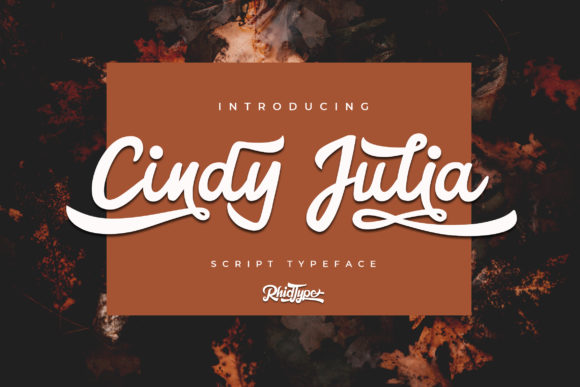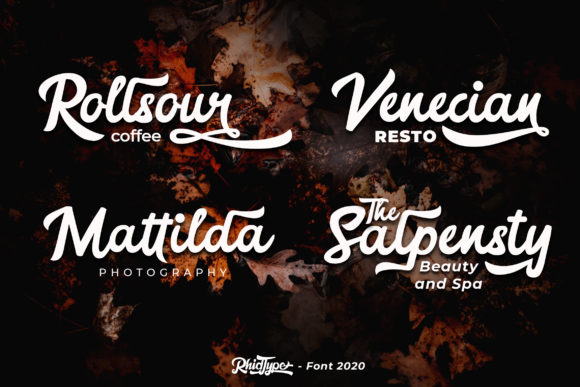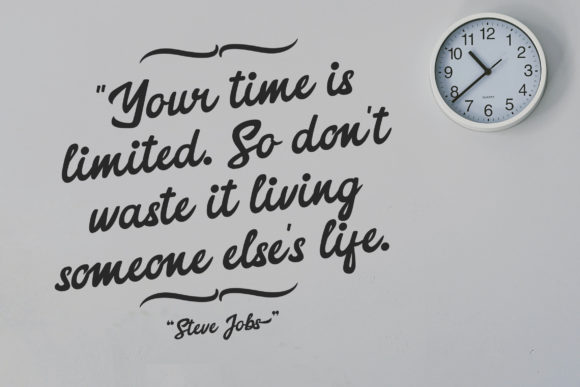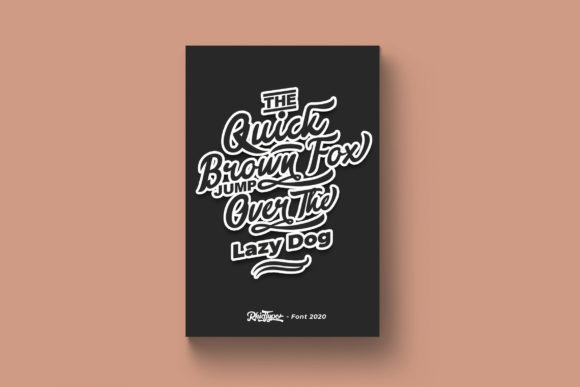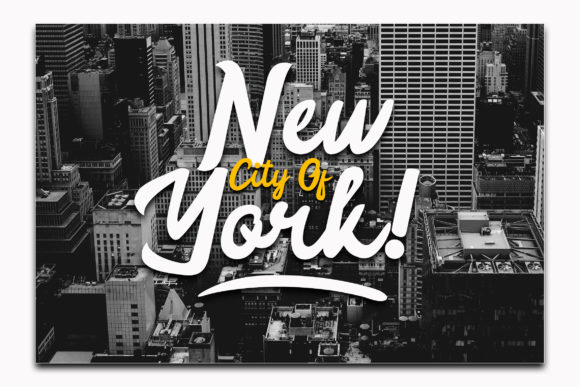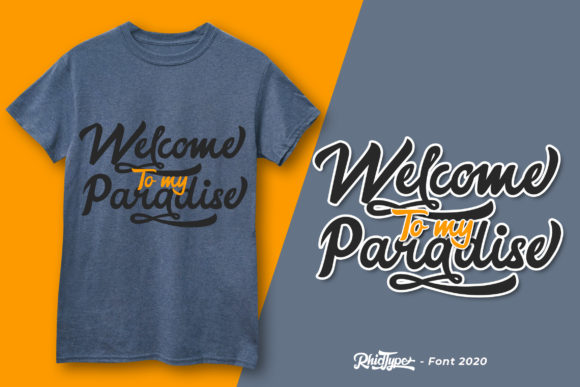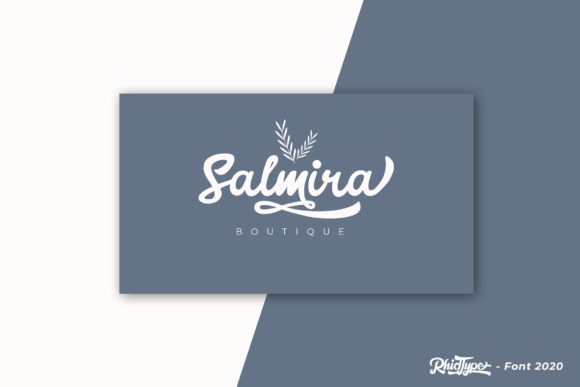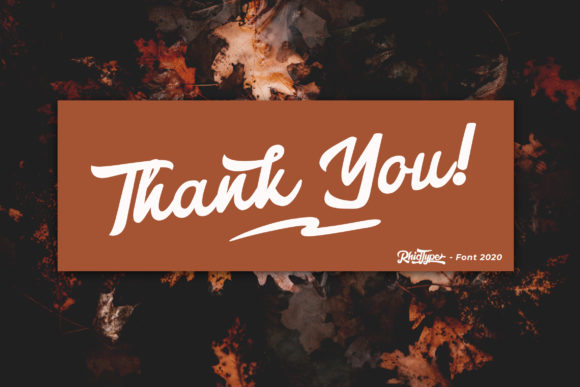
Cindy Julia Font
About Cindy Julia Font
Cindy Julia is an elegant and flowing handwritten font. It is PUA encoded which means you can access all of the glyphs and swashes with ease! It features a varying baseline, smooth lines, gorgeous glyphs and stunning alternates. It maintains its classy calligraphic influences while feeling contemporary and fresh. Fall in love with Cindy Julia and bring your projects to the highest levels!